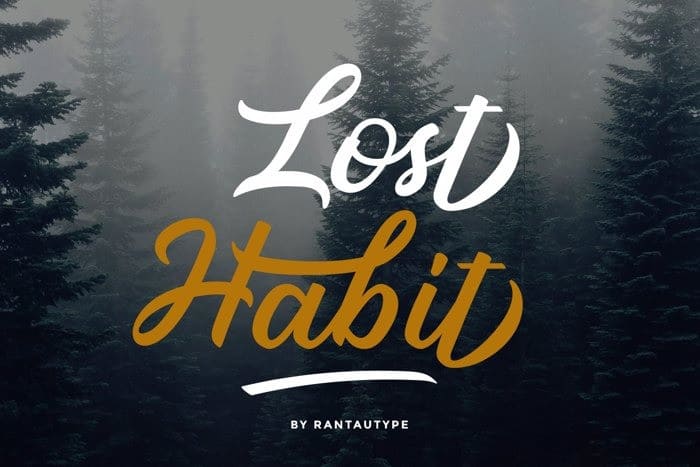
Lost Habit Font
Lost Habit Calligraphy Font is sweet, feminine, and includes alternate lowercase characters, some with a little extra flourish. It is great for making logotype, branding, promotional ads, quotes design, packaging, t-shirt design. merchandise, poster, merchandise, social media and much more. Lost Habit is here to make your work or your business to high level!